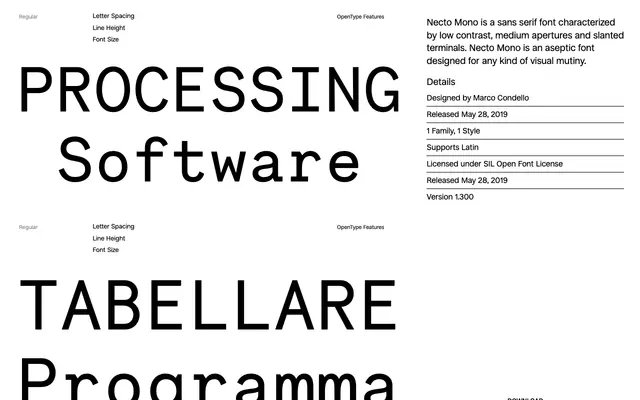
Necto Mono
Collletttivo · Marco Condello · 2019
A single-weight monospaced sans from Marco Condello, released free under the SIL Open Font License, built for technical and coding contexts.
Necto Mono is a low-contrast monospaced sans with medium apertures and slanted terminals, released by Italian collective Collletttivo in 2019. It covers a broad Latin character set including accented glyphs, fractions, mathematical symbols and arrows, making it practical for both programming environments and data display. Available in one weight and style, it is distributed freely under the SIL Open Font License.
A monospaced sans-serif with low contrast, medium apertures and slanted terminals, designed explicitly as a fixed-width typeface for coding, data and technical contexts.